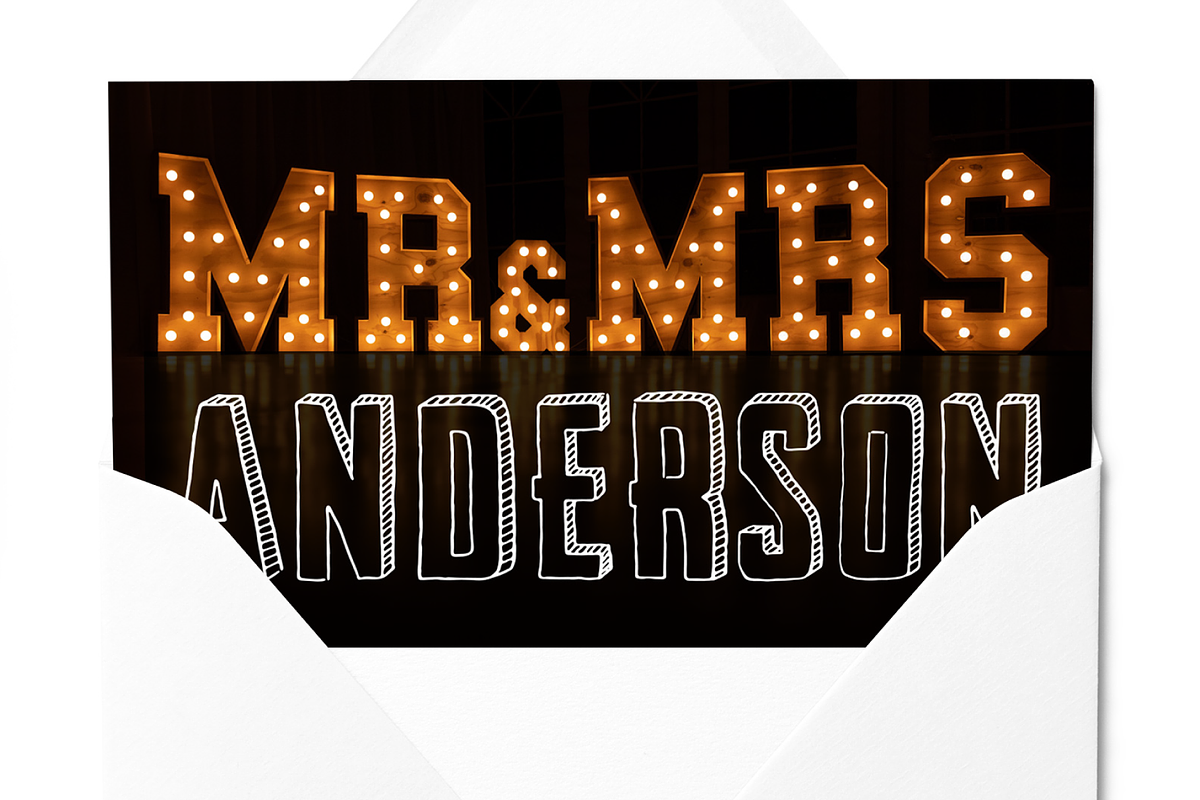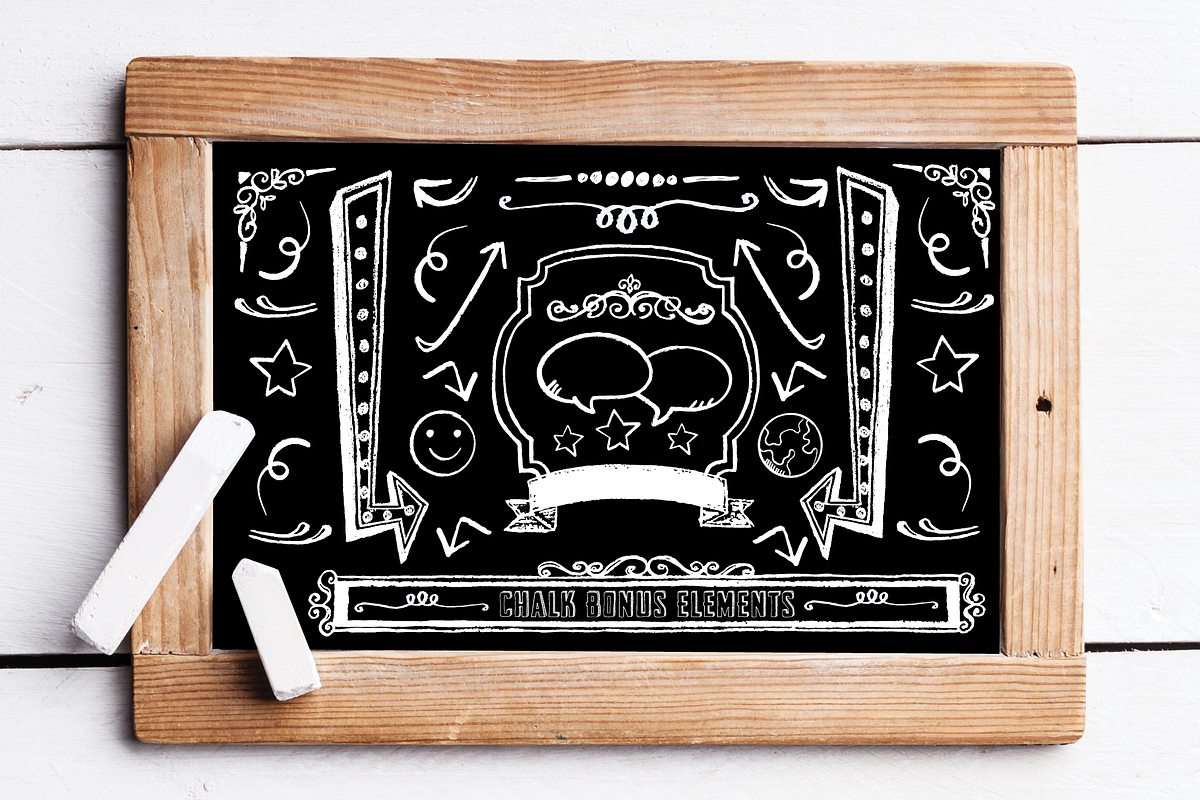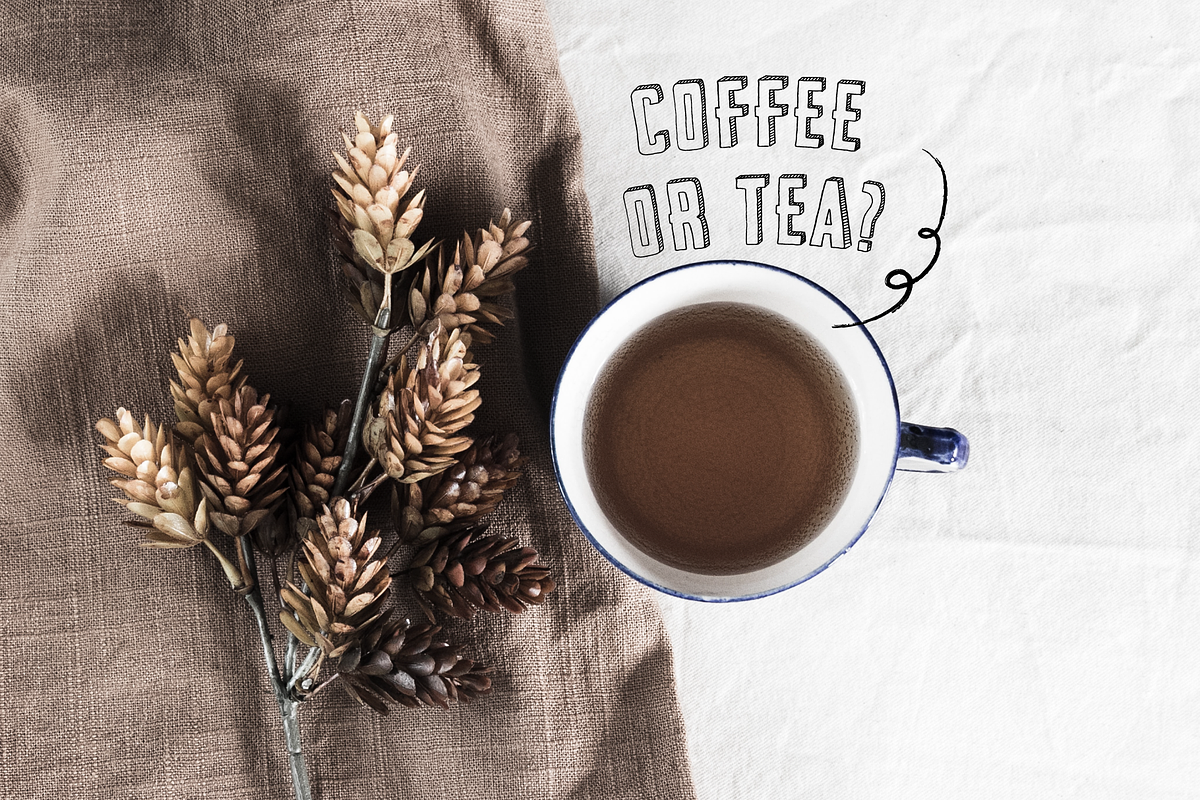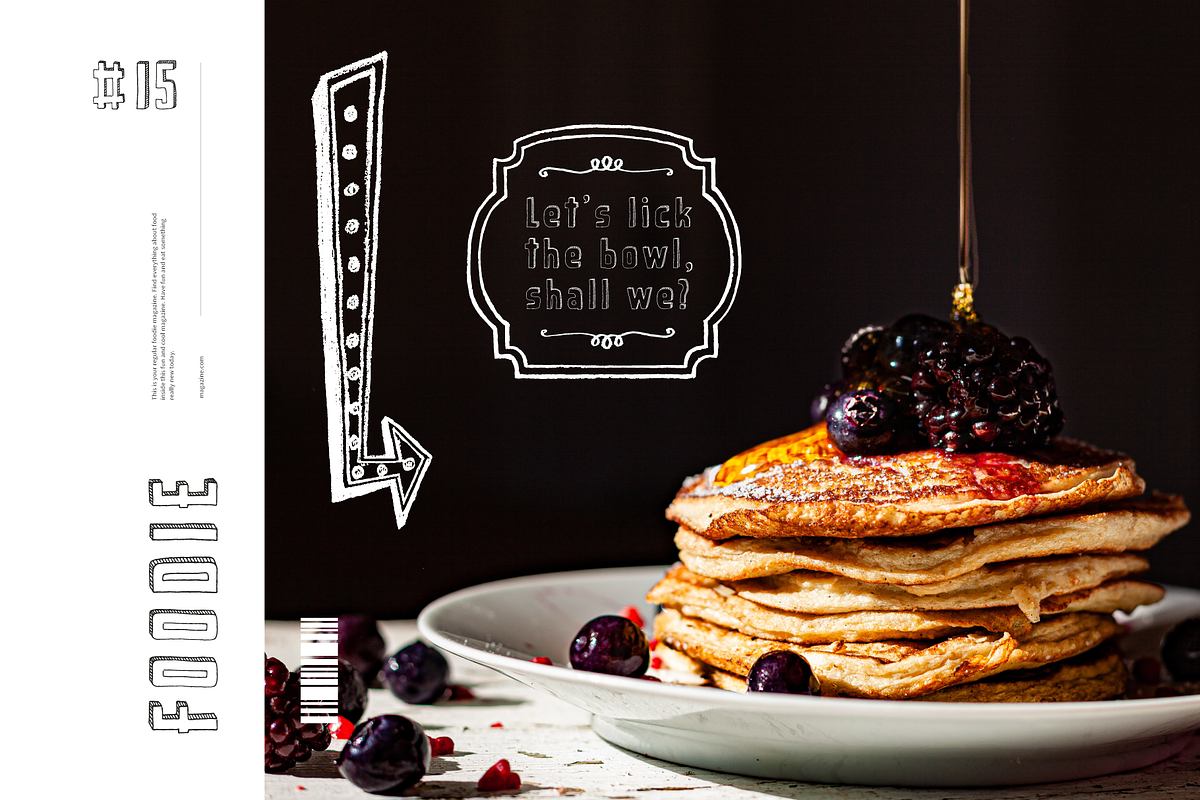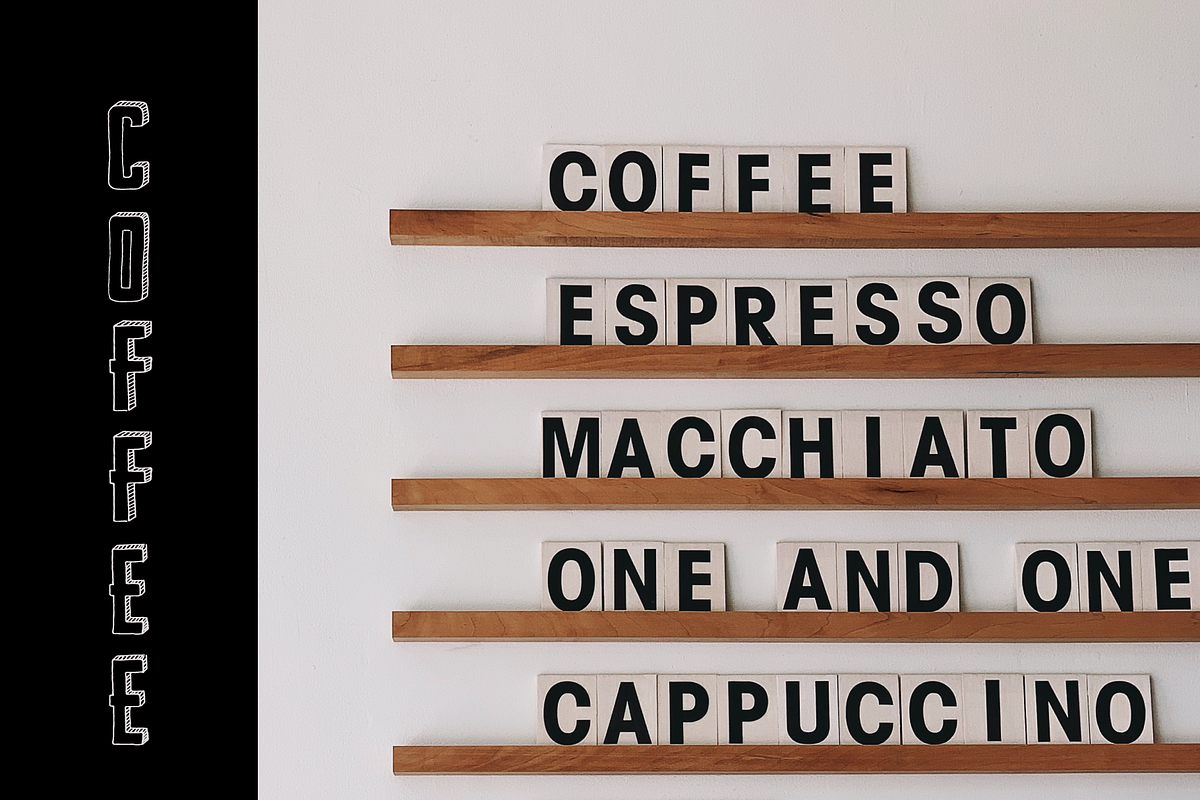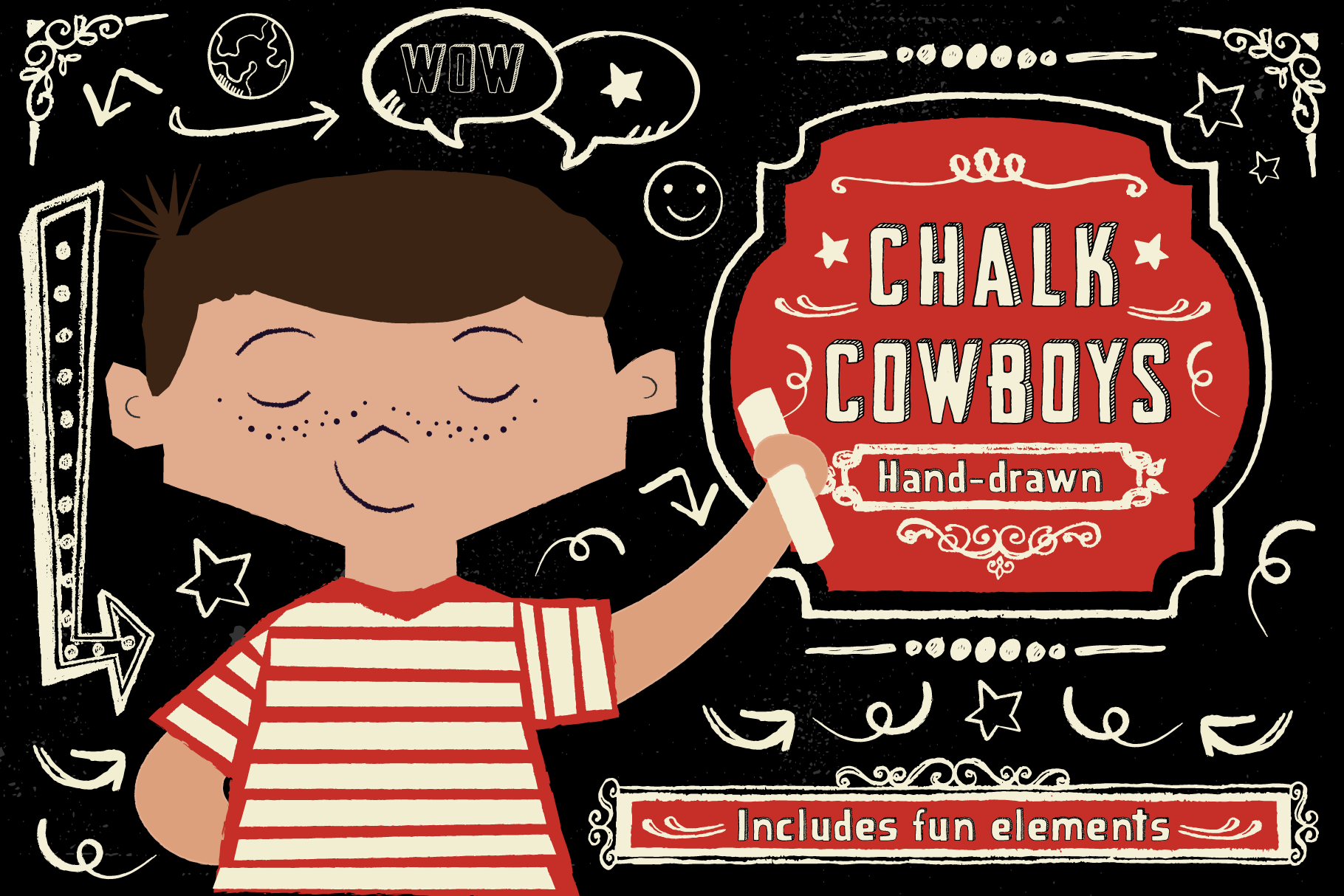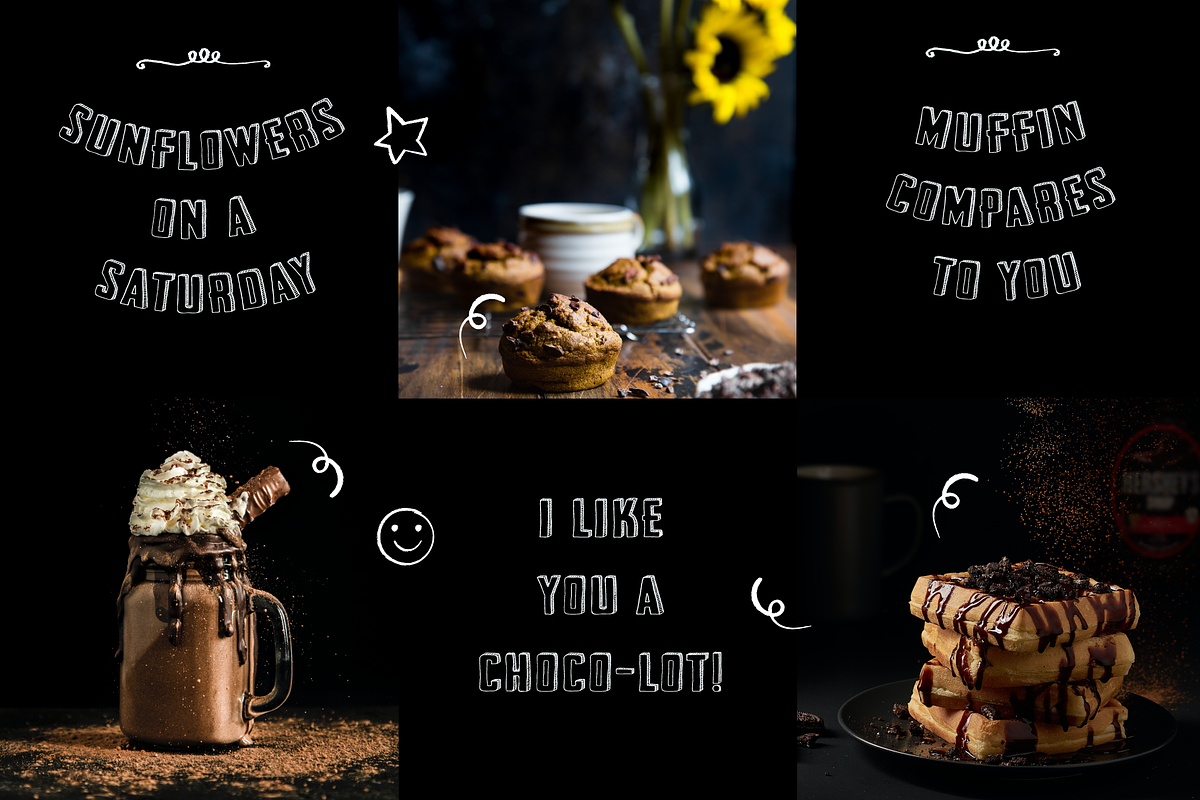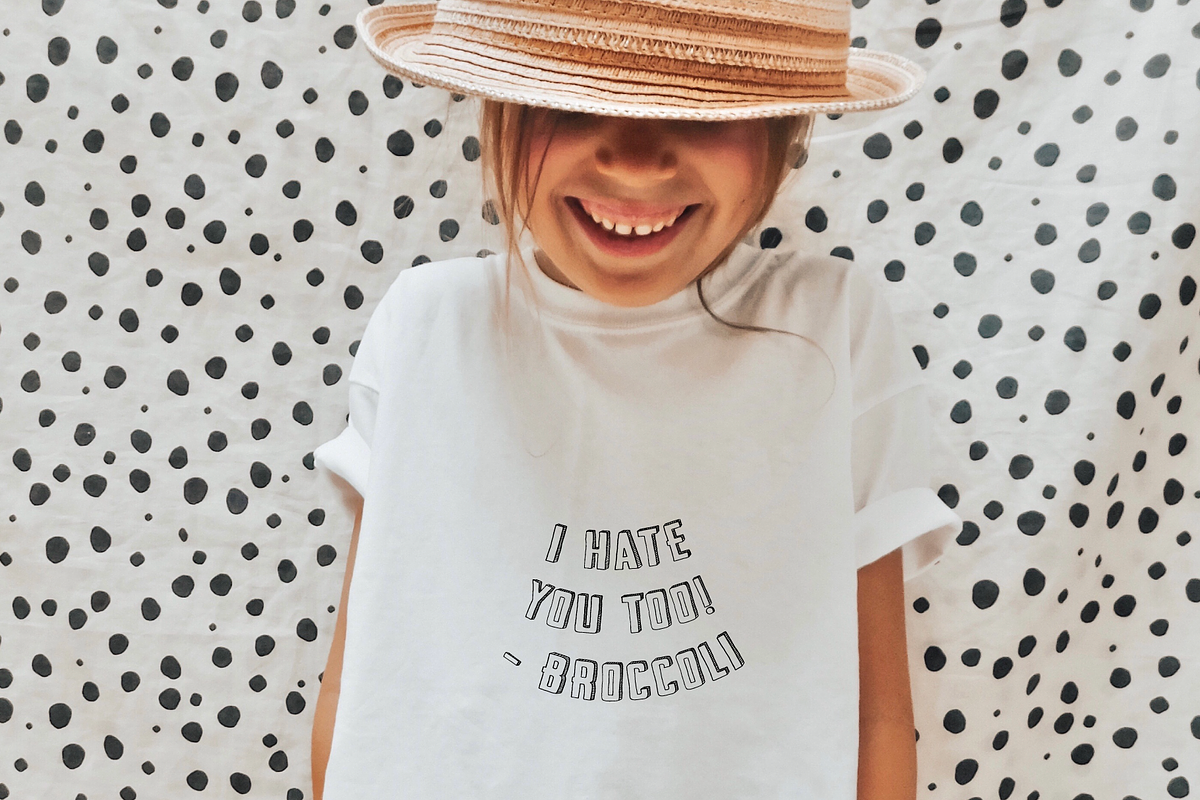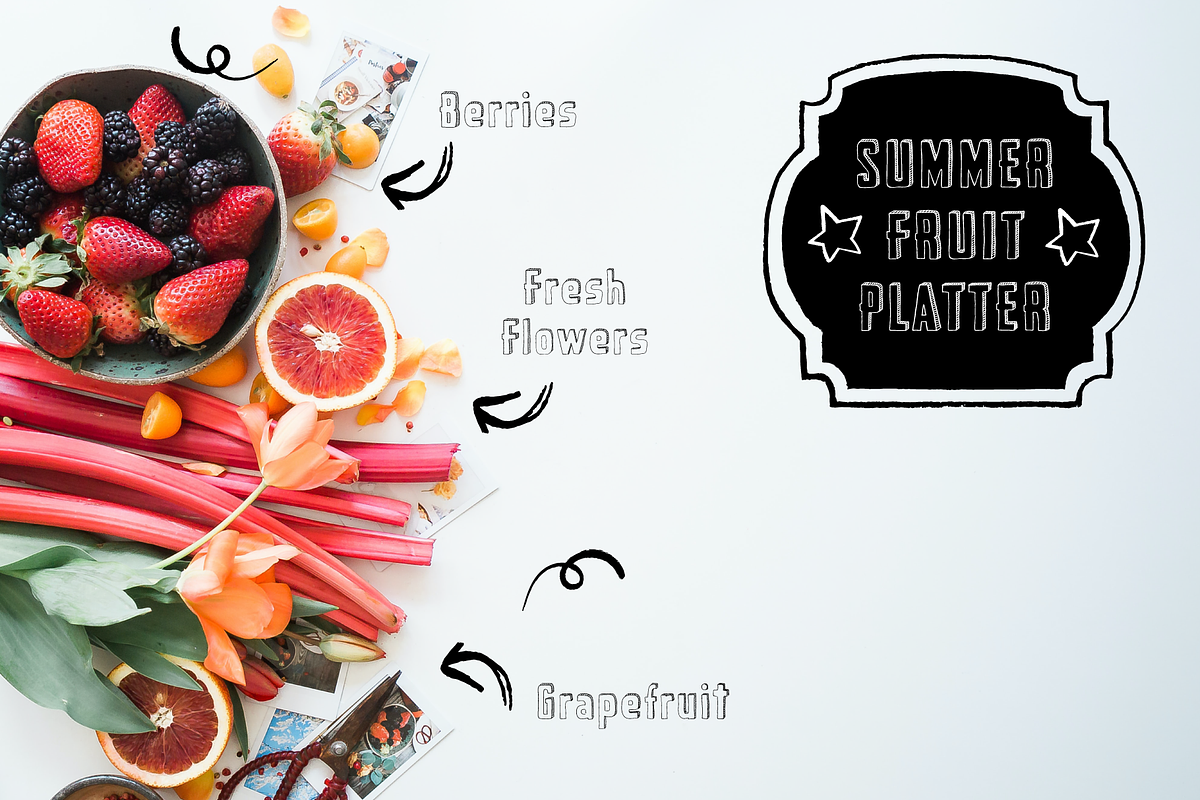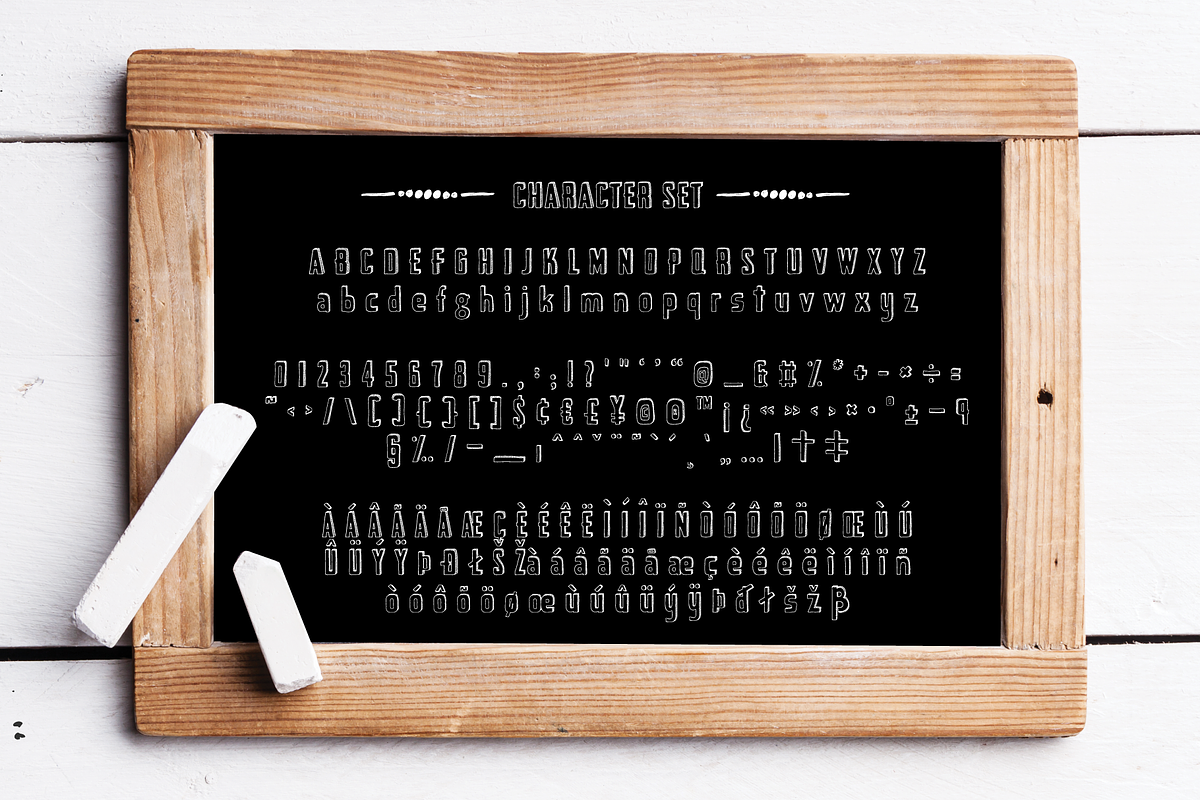
Chalk Cowboys Chalk Font Vintage
Chalk Cowboys is a vintage chalk font, handwritten by me. It has a real chalkboard feel and is a:
- textured font
- handwriting font
- has bonus shape elements
- and full Latin support
As a bonus you will get real chalkboard shapes (as seen in preview pic three). Get creative and use this retro font for:
- a menu
- food branding
- as a display font for invites
- chalk lettering (of course =))
- shirt designs
- magazine layout
- Instagram posts or any Social Media posts, really
This font also works great as a running text, too. =)